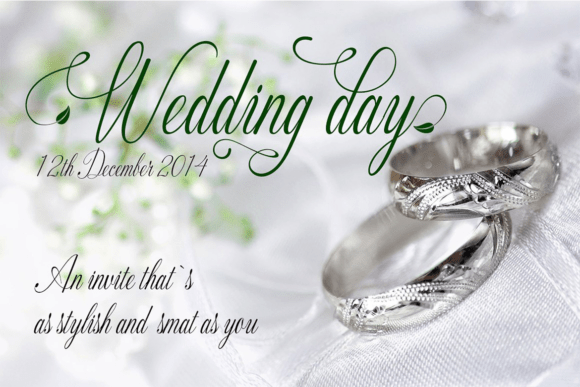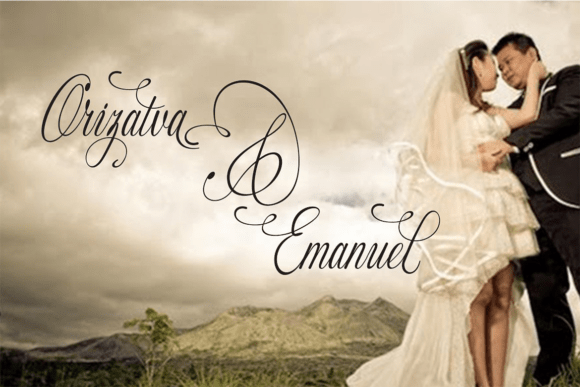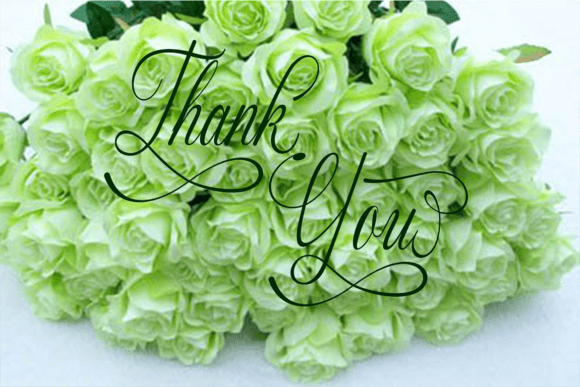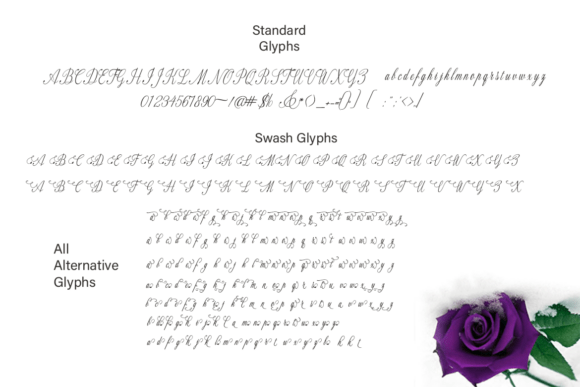
Introduction to Fameliya Font
Have you ever found yourself scrolling through your social media feed, and suddenly a beautiful wedding invitation or a beautifully crafted label catches your eye? That’s exactly what happened to many designers when they discovered the enchanting Fameliya Font, a script font that exudes elegance and sophistication. Whether you’re working on a creative project, or simply looking for a design resource to elevate your brand, Fameliya Font is an excellent choice.
With its unique wedding-inspired characteristics, this font is perfect for creating labels and event materials that stand out. Plus, its versatility makes it an ideal choice for designers who want to add a personal touch to their work. What sets Fameliya Font apart is its extensive range of OpenType features, which allow designers to access alternative characters and create high-quality designs with ease.
Whether you’re working on a personal project or a client-based design, Fameliya Font is a valuable resource that’s sure to inspire creativity and bring your designs to life.
Key Features of Fameliya Font
- High-quality, professional font suitable for various creative projects, including graphic design and digital art.
- Features a clean and modern design aesthetic, ideal for a wide range of creative applications.
Honest Review: Fameliya Font
I recently stumbled upon the Fameliya Font and was excited to give it a try. As a designer, I’m always on the lookout for high-quality design resources to elevate my creative projects.
- The font has a unique, modern design that can add a touch of sophistication to any project.
- The font may not be suitable for projects requiring a wide range of font weights, as it only includes a few variations.
- The font’s design may be too modern for some projects, which could limit its versatility.
Tips for Getting the Most Out of Fameliya Font
To get the most out of the Fameliya Font, experiment with different font sizes, colors, and styles to create a unique design. You can also pair it with other fonts to create a visually appealing combination.
The Fameliya Font is commonly used in creative projects such as logos, brochures, and social media graphics. Its high-quality design and transparent background make it a versatile design resource for various applications.
What makes the Fameliya Font a high-quality design resource?
The Fameliya Font is a high-quality design resource due to its clear and legible typography, making it perfect for a variety of creative projects. The font features a transparent background, allowing it to be easily layered over other design elements. Additionally, the font is designed to be highly versatile, making it suitable for use in a range of contexts, from body text to headings and titles.